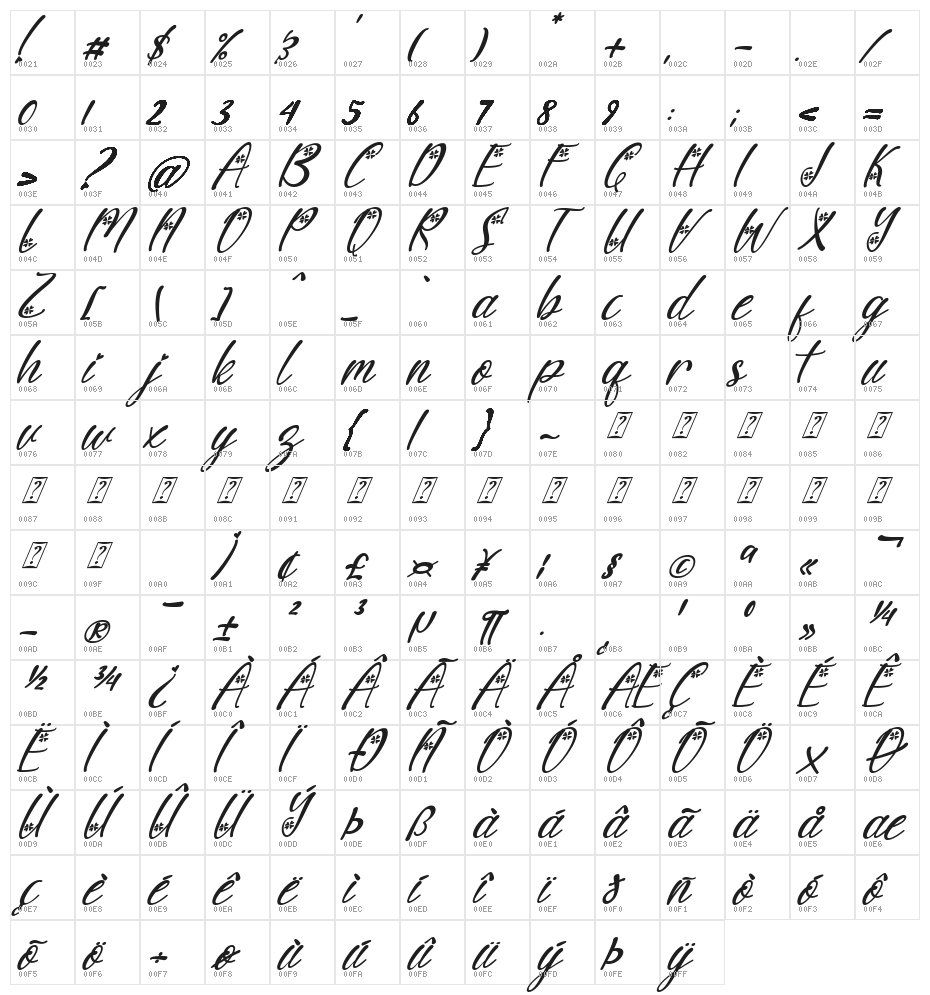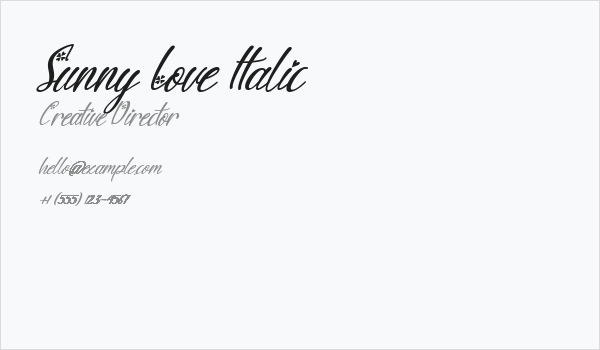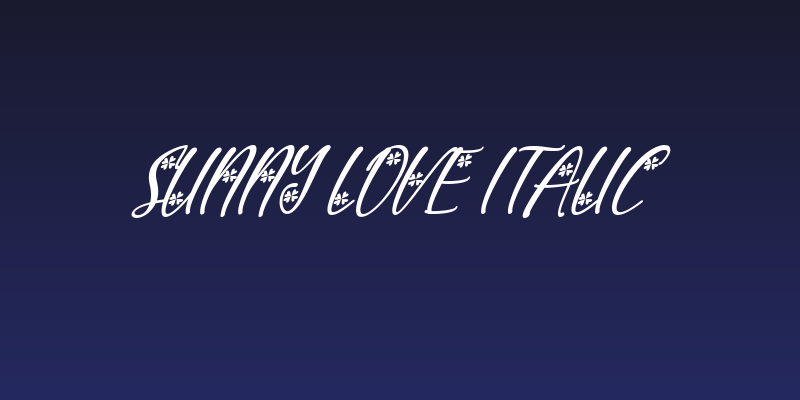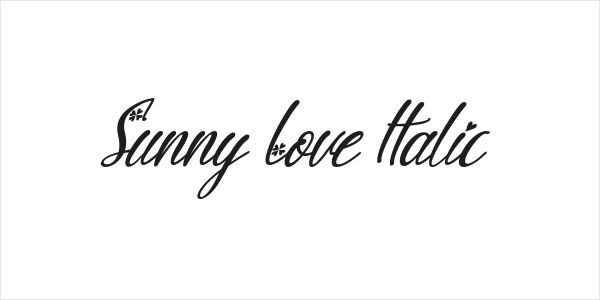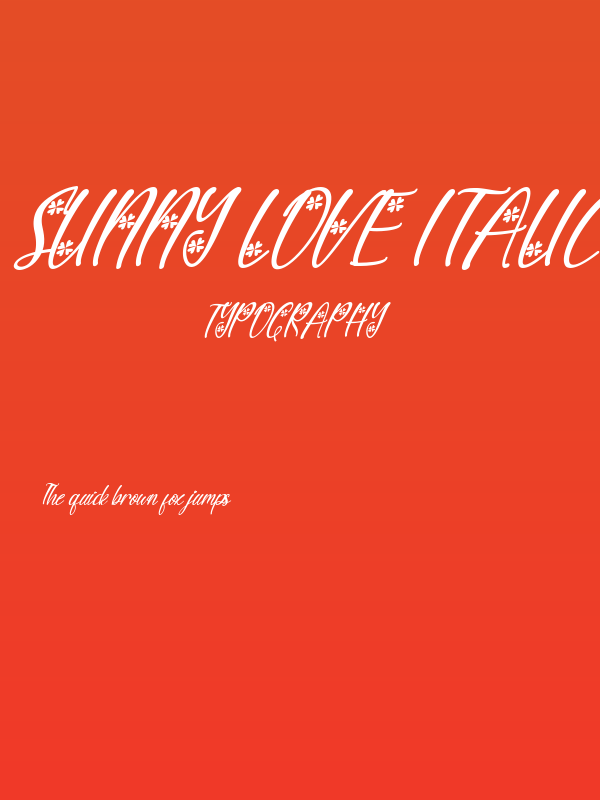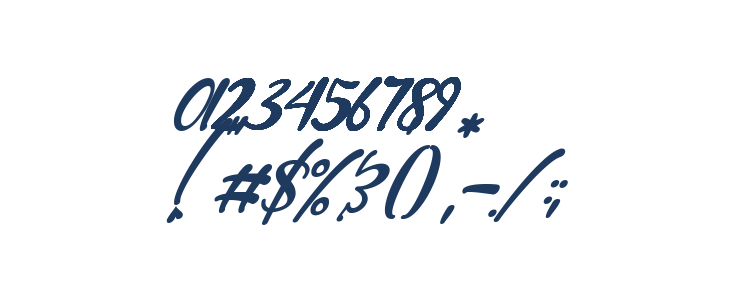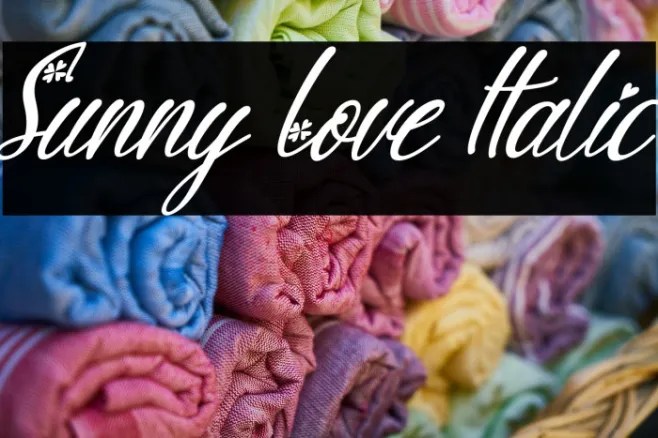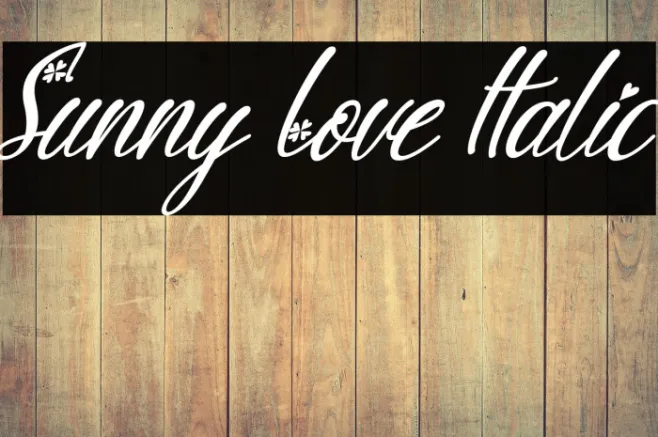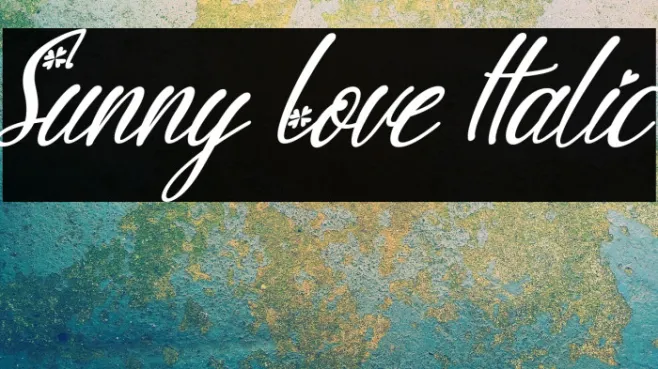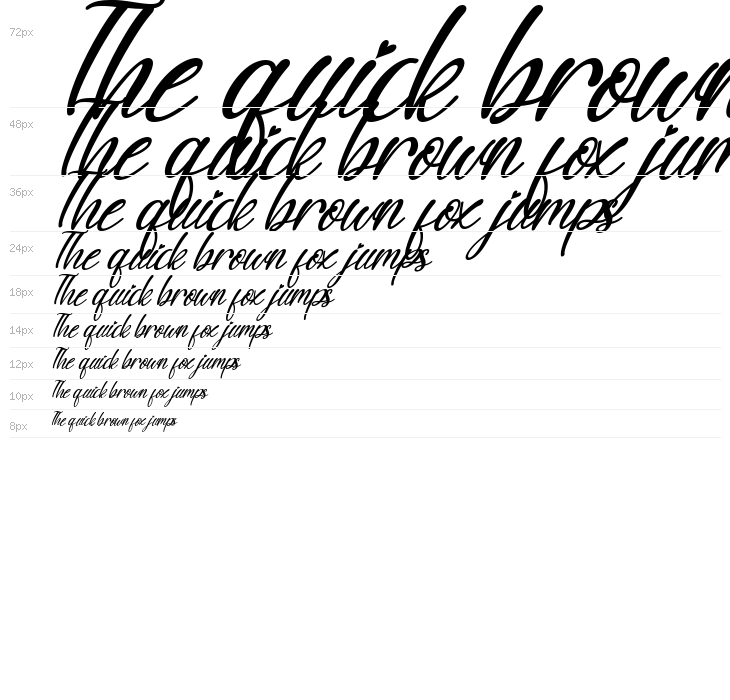
Sunny Love Italic Font
Sunny Love Italic Description
This font features a playful and whimsical script style, characterized by its flowing, cursive letters adorned with small floral accents. The uppercase letters are particularly decorative, with each character incorporating a unique flower motif. The lowercase letters maintain a consistent cursive flow, enhancing the font's overall elegance. The numbers and special characters are designed to match the script's fluidity, ensuring a cohesive look across all text. This font's artistic flair makes it ideal for creative and expressive projects.